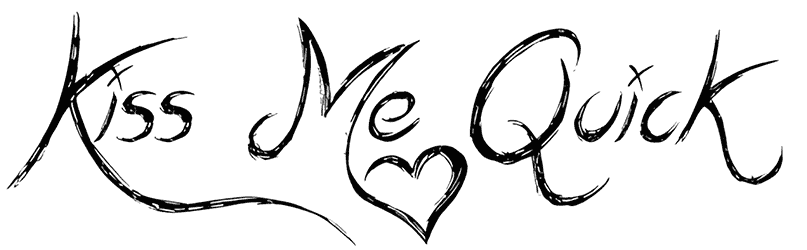
Kiss Me Quick Font
No one can underestimate the playful and friendly vibes of this holiday font. Looking inspired by the sweet, inky brush style that dances artistically to assemble this Valentine font to make your typography design more compelling.
Simply put, Kiss Me Quick, with its script font traces, may be tricky to read in some situations, so try to use it in short strings like quotes, invitations, Valentine’s posters, feminine apparel designs, and so on.